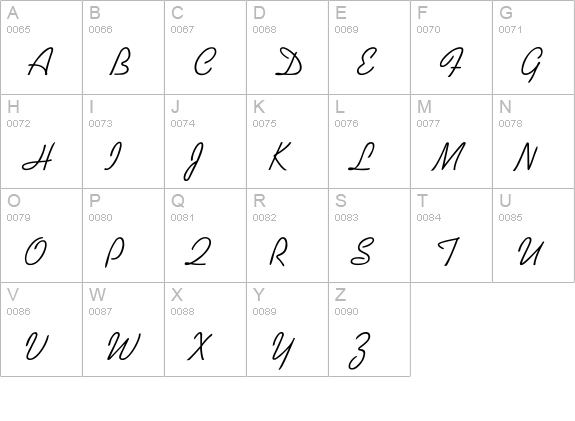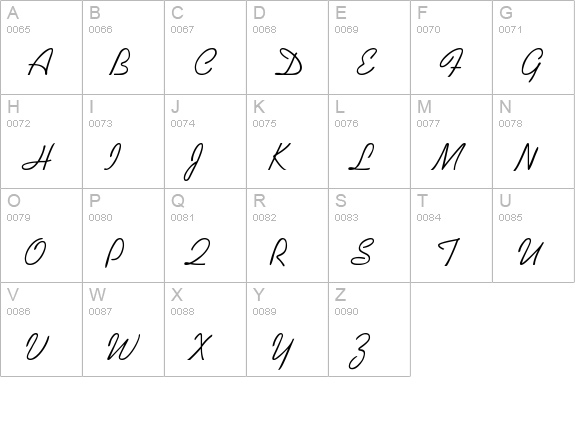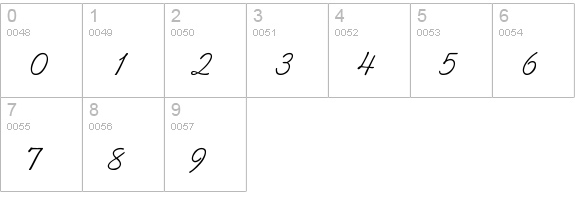
Alako Font Details
Alako font is a modern and stylish typeface that exudes elegance and sophistication. With its clean lines and sleek design, Alako is perfect for a wide range of creative projects, from branding to editorial design. This versatile font features a unique combination of classic and contemporary elements, making it suitable for both print and digital applications. What sets Alako font apart is its seamless blend of professionalism and creativity, making it a top choice for designers looking to make a bold statement. Whether used in headings, body text, or logos, Alako font adds a touch of refinement to any project. The best part? Alako font is available for free download at FontsMarket.com, allowing you to access this premium typeface without breaking the bank. Don't miss out on the opportunity to elevate your designs with the timeless beauty of Alako font. Download it today and unleash your creativity!